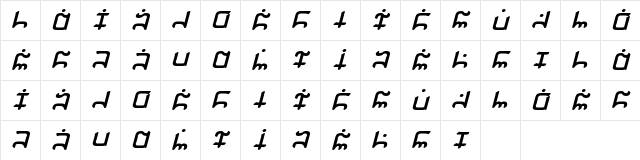
Gargish is a composed and adaptable typeface that performs quietly and consistently across a wide range of design contexts. The slanted form adds forward momentum and visual energy. Its bold stroke weight gives it real presence on the page.
Pro Tip: Use Gargish for emphasis, pull quotes, and subheadings where its slanted energy can add rhythm to the layout.